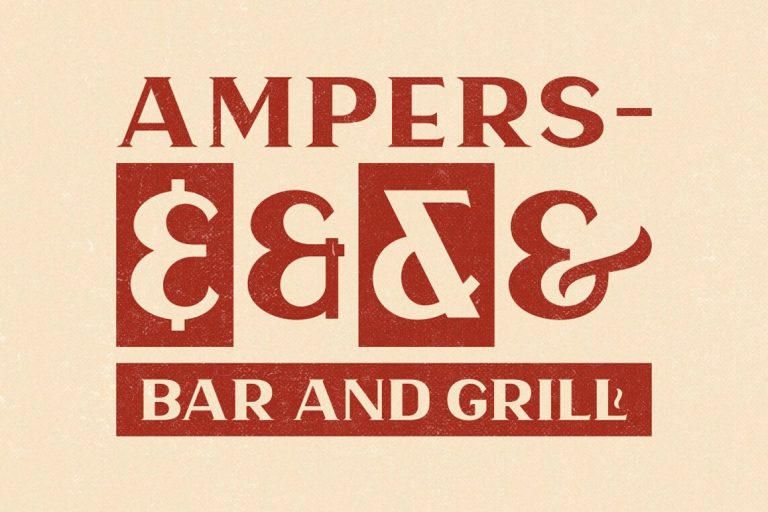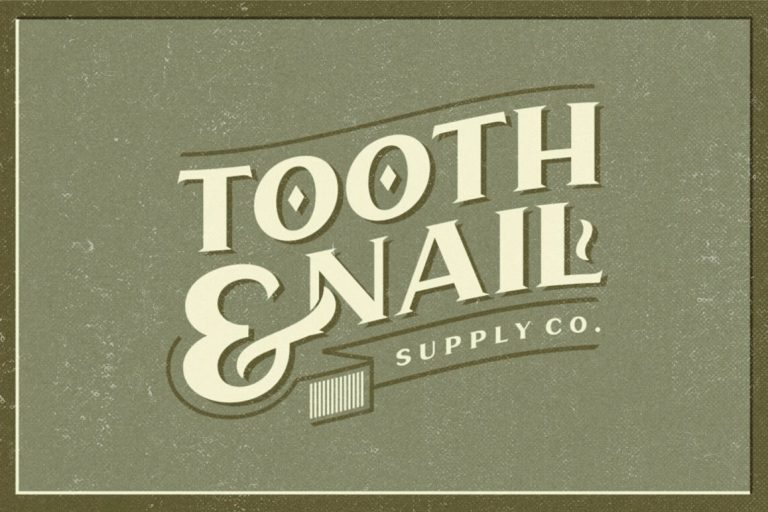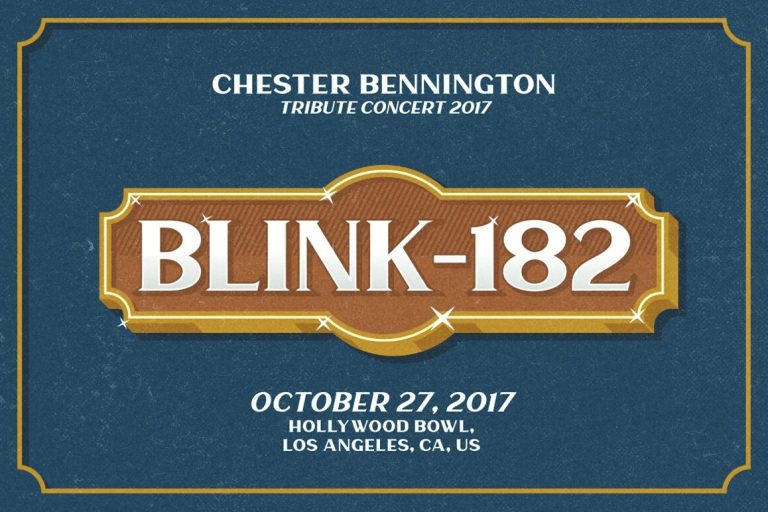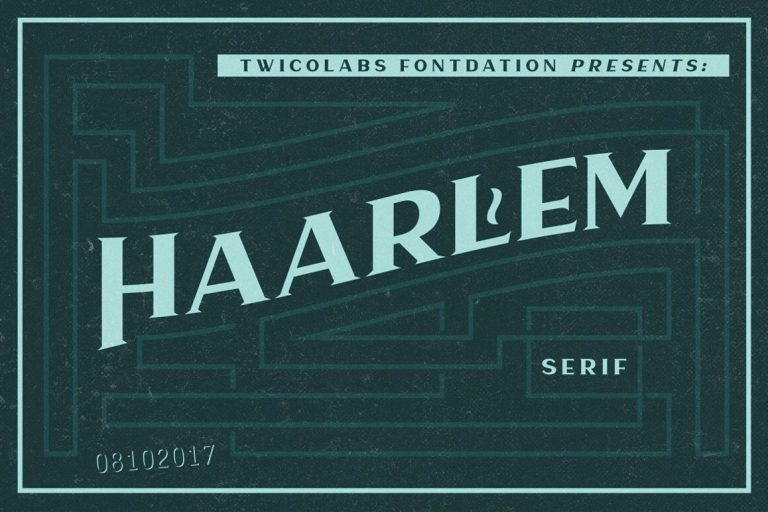
Haarlem Serif Font
Haarlem Serif Font – Free Demo
Haarlem is an modern serif font created by Twicolabs Fontdation . Haarlem – a unique combination of fat vertical and thin horizontal lines. This all-caps font suits well for any occasions; its wide form gives you a classic feel, while the serif adds an extra tough-looking feel at the same time. If you’re a fan of classic/vintage typography/design, this font is a must have!